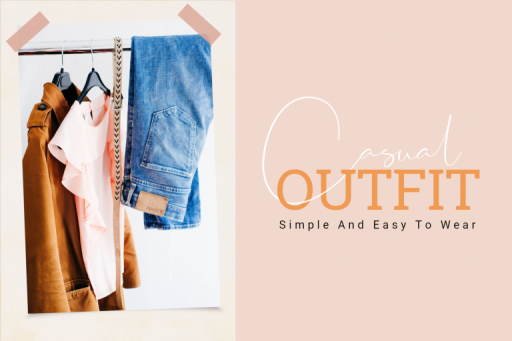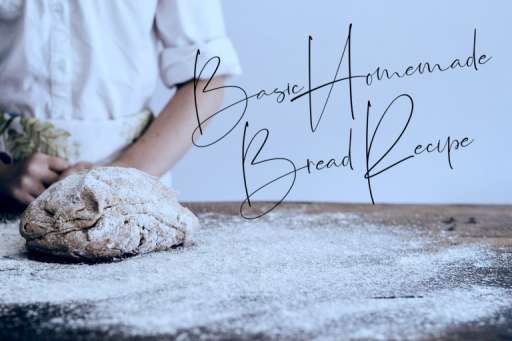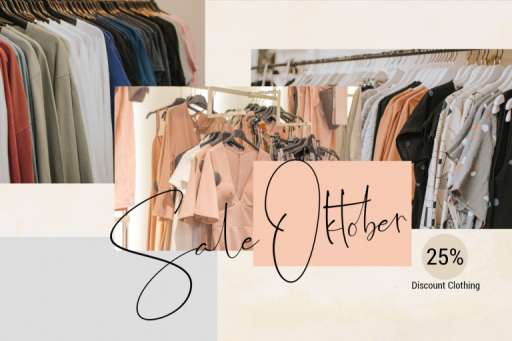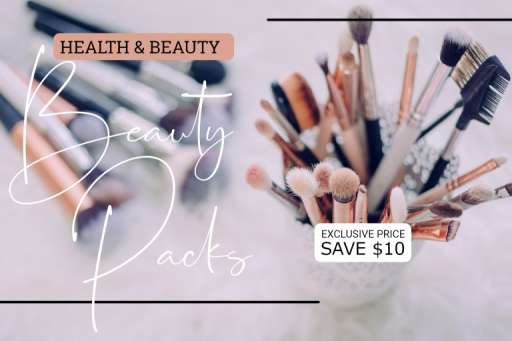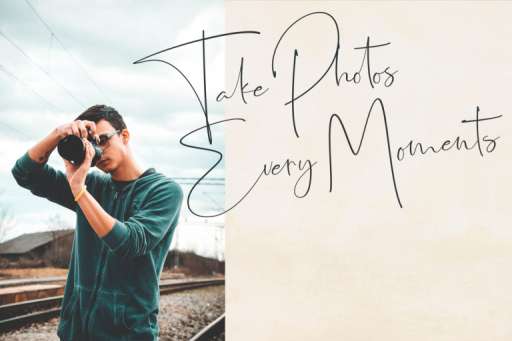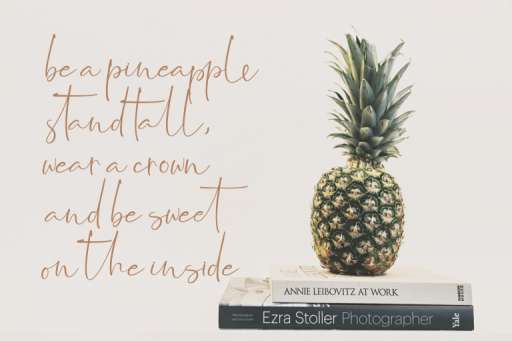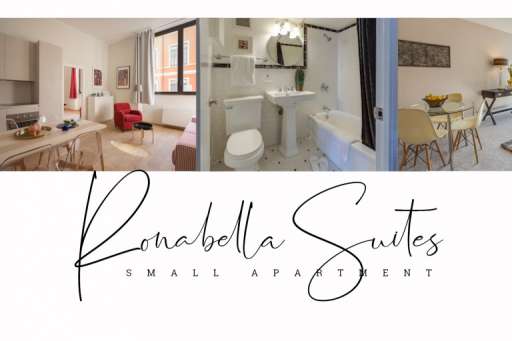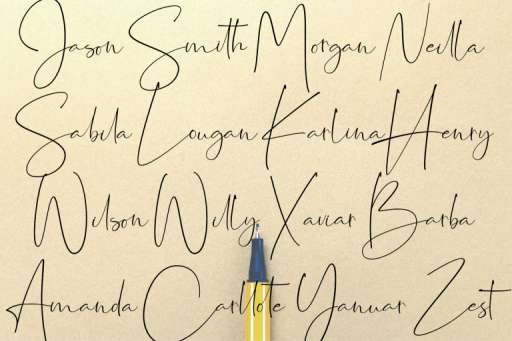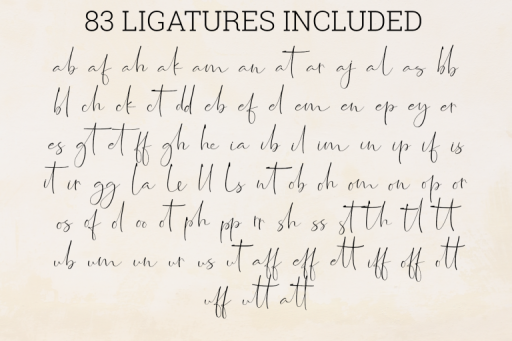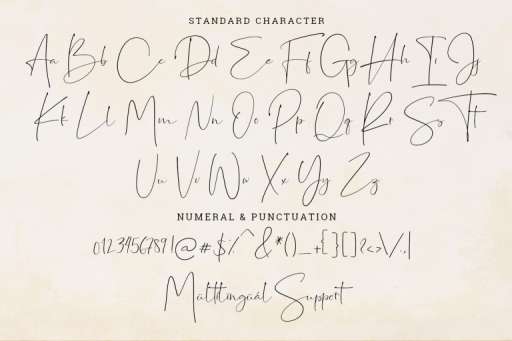
Jasmine Font - Script Business Font From Jimtype Studio
Jasmine Regular
Jasmine Font – Handwritten Script
Jasmine font is a natural handwritten signature font by including over 83 ligatures and standard character. Jasmine is perfect for branding, photography, invitations, quotes, watermarks, advertisements, product designs, labels, and much more!
Jasmine Features :
• Ligature
• Multilingual